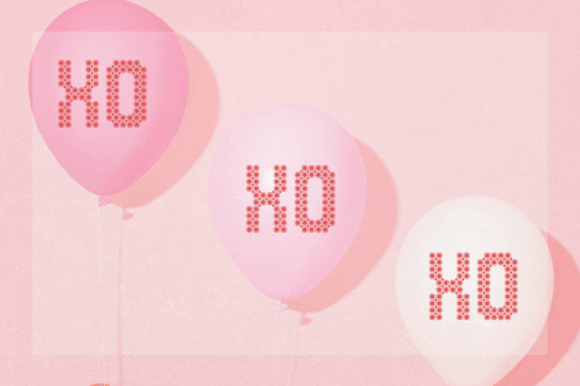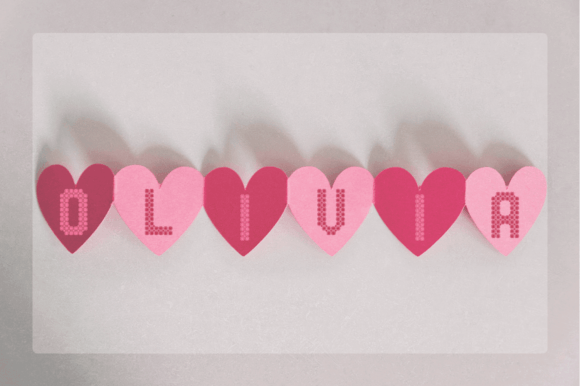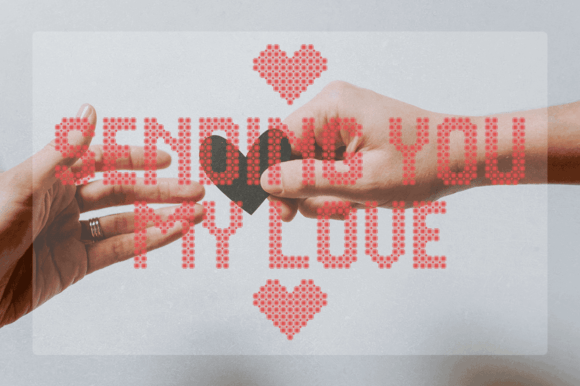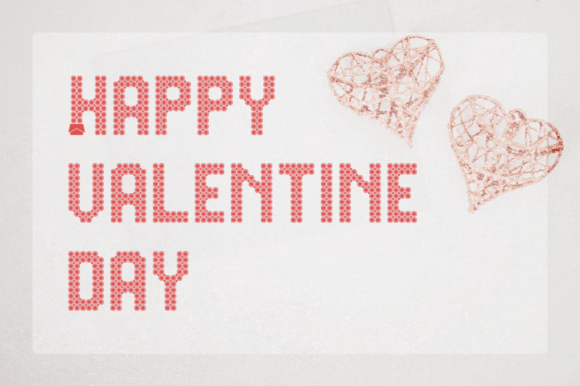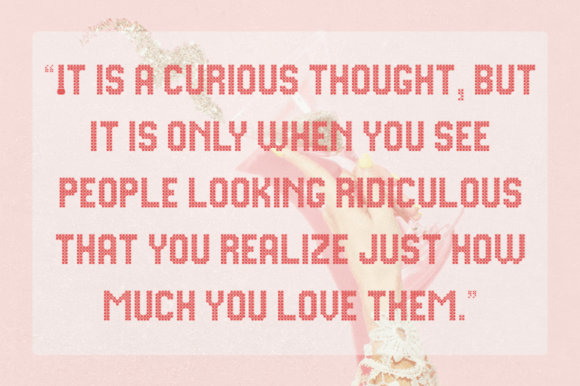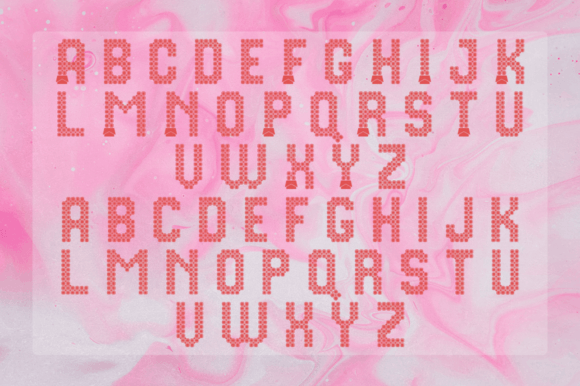
Introduction to Pixel Chocolate Font
Have you ever been working on a creative project, and the perfect element just slipped through your fingers? I know I have! It was on a chilly winter evening, surrounded by half-eaten chocolates and the soft glow of my computer screen, that I stumbled upon the idea for the Pixel Chocolate Font. This adorable display of cute Valentine’s letters in the shape of a chocolate bar is a must-have for anyone looking to add a touch of whimsy to their designs.
As a designer, you know how valuable it is to have a reliable design resource at your disposal. The Pixel Chocolate Font is a free download that’s perfect for high-quality projects, with a transparent background that makes it easy to integrate into any design. Whether you’re working on a Valentine’s Day-themed project or just want to add some pixel-perfect charm to your designs, this font is sure to delight.
Key Features of Pixel Chocolate Font
- Unique Pixel Art aesthetic with a sweet, chocolatey twist, ideal for creative projects.
- Includes a range of characters, including uppercase and lowercase letters, numbers, and special symbols.
- Can be used in a variety of creative projects, including video games, animations, and graphic design.
Honest Review: Pixel Chocolate Font
I recently came across the Pixel Chocolate Font, a quirky and fun design resource that I was excited to dive into. As a designer, I’m always on the lookout for unique and high-quality fonts to elevate my creative projects.
What works well with the Pixel Chocolate Font is its versatility. It can be used in a variety of settings, from digital designs to print materials. The font is also free to download, which is a huge plus for designers working on tight budgets.
- High-quality design: The Pixel Chocolate Font has a crisp and clean aesthetic that’s perfect for modern designs.
- Transparent background: The font’s transparent background makes it easy to customize and integrate with other design elements.
However, I do have a few limitations to note. The font’s pixelated aesthetic may not be suitable for all designs, and the character set is limited compared to other fonts.
Overall, I’m impressed with the Pixel Chocolate Font. While it may not be the most versatile font on the market, its unique aesthetic and high-quality design make it a valuable addition to any designer’s toolkit.
I’d definitely recommend the Pixel Chocolate Font for designers working on creative projects that require a touch of whimsy and fun.
Tips for Getting the Most Out of Pixel Chocolate Font
When using Pixel Chocolate Font, make sure to experiment with different font sizes, colors, and combinations to achieve the desired look. You can also use it in conjunction with other design elements, such as images and graphics, to create a unique and engaging design.
Pixel Chocolate Font is commonly used for creative projects, such as logos, posters, and social media graphics. It’s also a great resource for designers who want to create high-quality, unique designs with a transparent background.